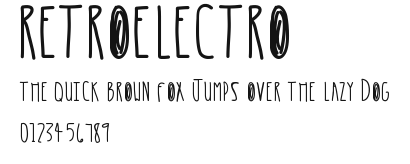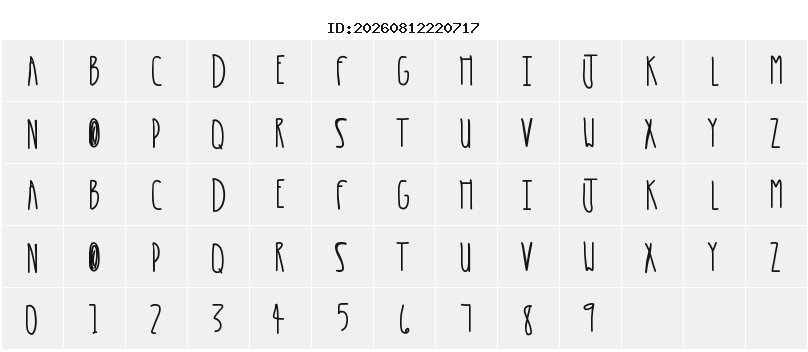
• Font Name: RetroElectro
About RetroElectro.ttf
RetroElectro.ttf is a modern, elegant sans-serif font designed for ultimate readability and visual harmony. Perfect for branding, headlines, web design, and print materials.